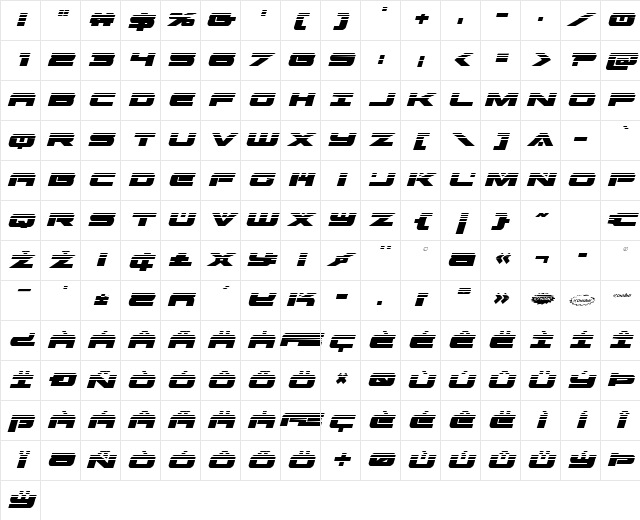
Predataur Halftone Italic Italic
Design Context for Predataur Halftone Italic
Predataur Halftone Italic is a composed and adaptable typeface that performs quietly and consistently across a wide range of design contexts. The slanted form adds forward momentum and visual energy.
Pro Tip: Use Predataur Halftone Italic for emphasis, pull quotes, and subheadings where its slanted energy can add rhythm to the layout.